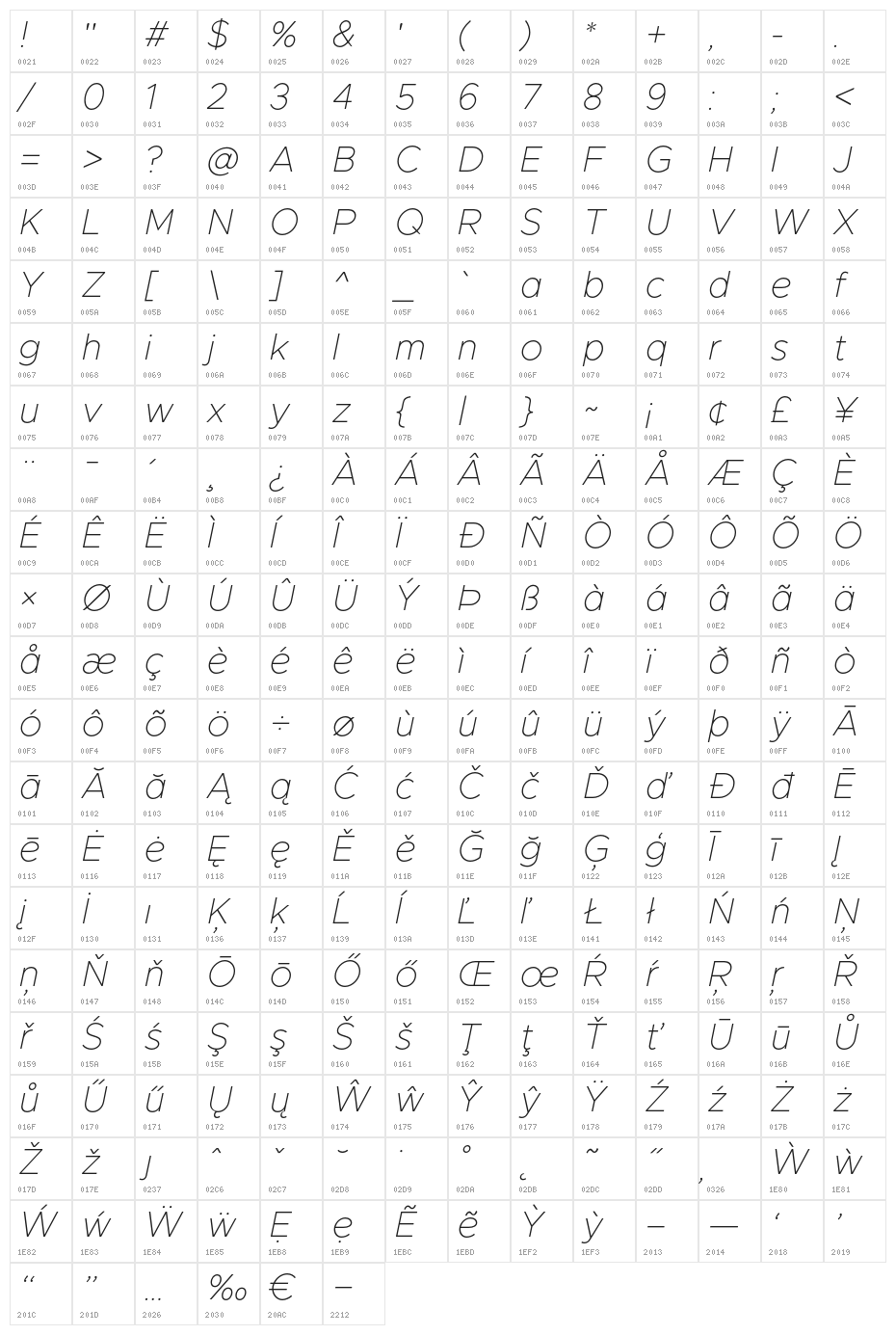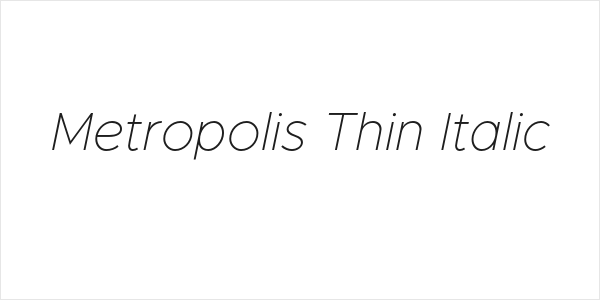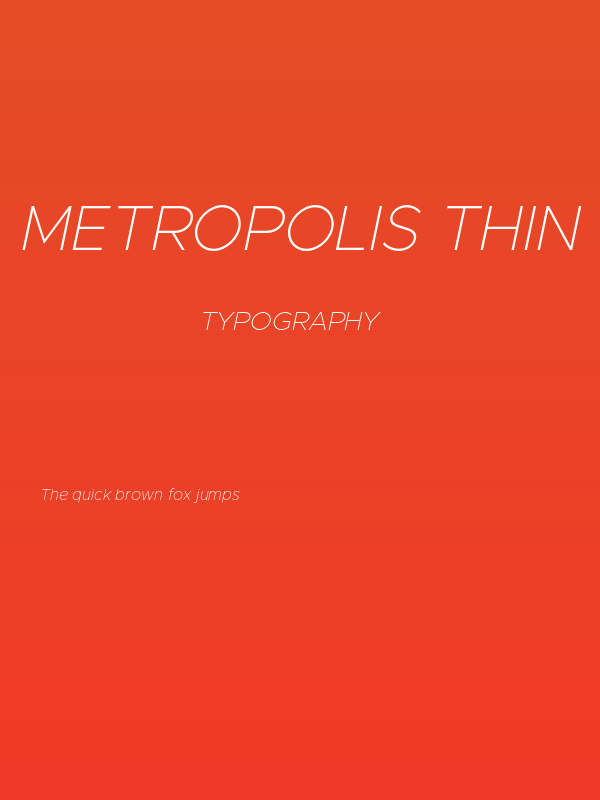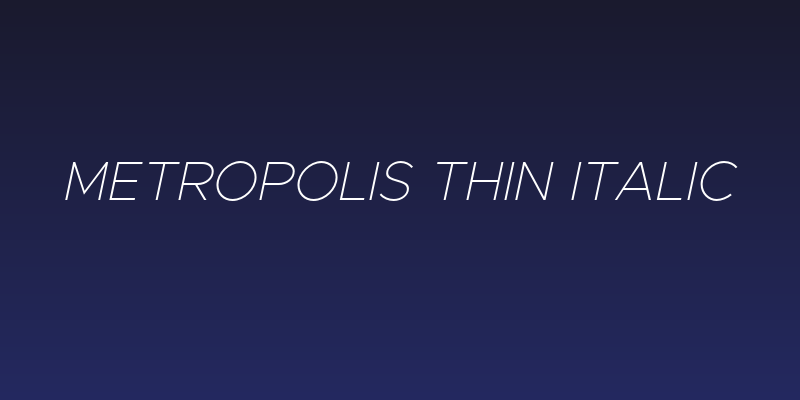
Metropolis Thin Italic Font
Metropolis Thin Italic Description
This font exhibits a sleek and modern design with a thin, elegant structure. The italic style adds a sense of motion and sophistication, making it ideal for contemporary projects. Its clean lines and minimalistic approach ensure readability while maintaining a stylish appearance. The uniform stroke width and slight slant give it a dynamic yet balanced look, suitable for a variety of design contexts. The characters are well-proportioned, with a consistent height and spacing that contribute to its refined aesthetic. This font is perfect for projects that require a touch of elegance and modernity.
| Proposed Projects | Ideal for branding, editorial design, fashion magazines, and modern websites. |